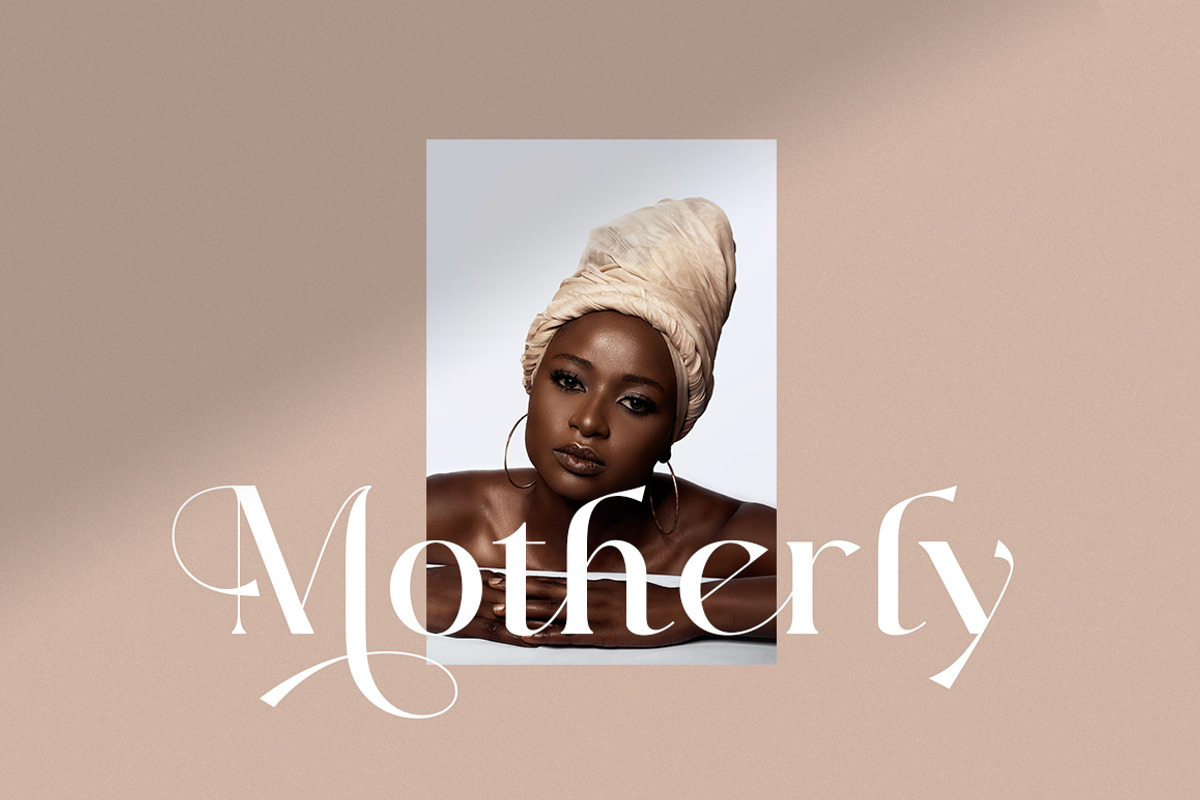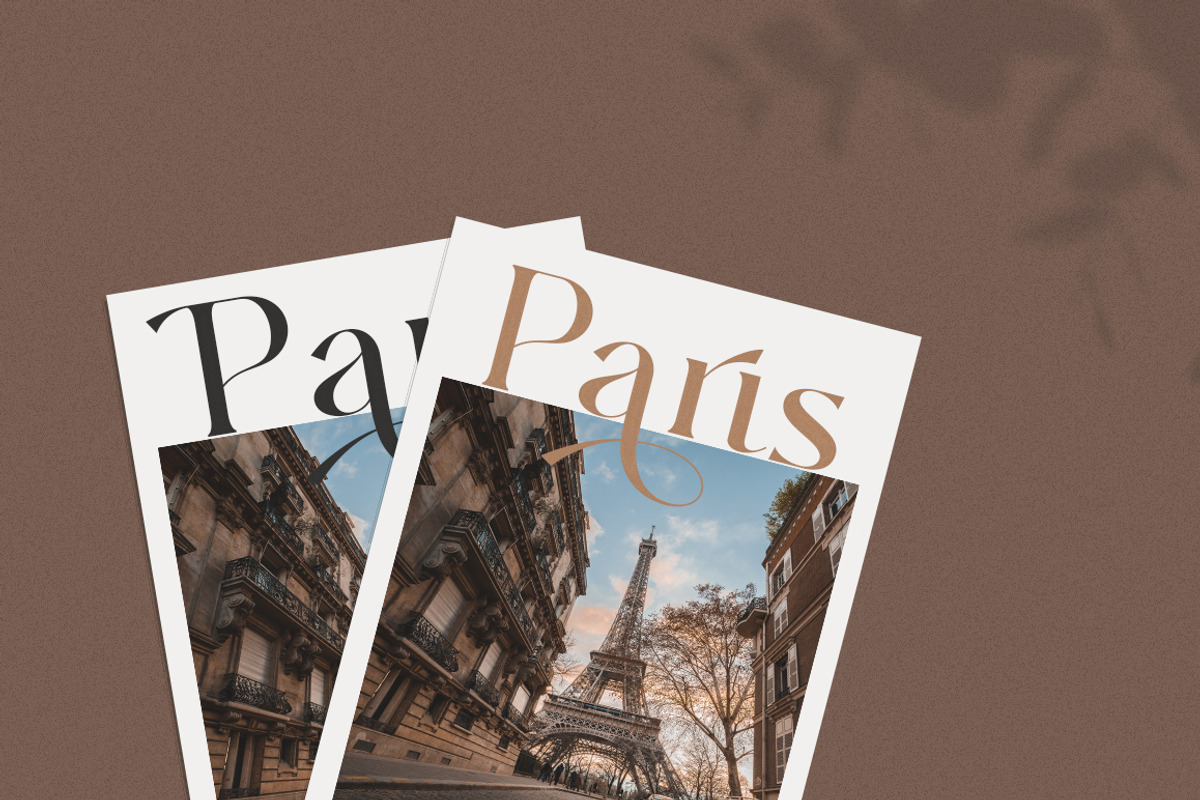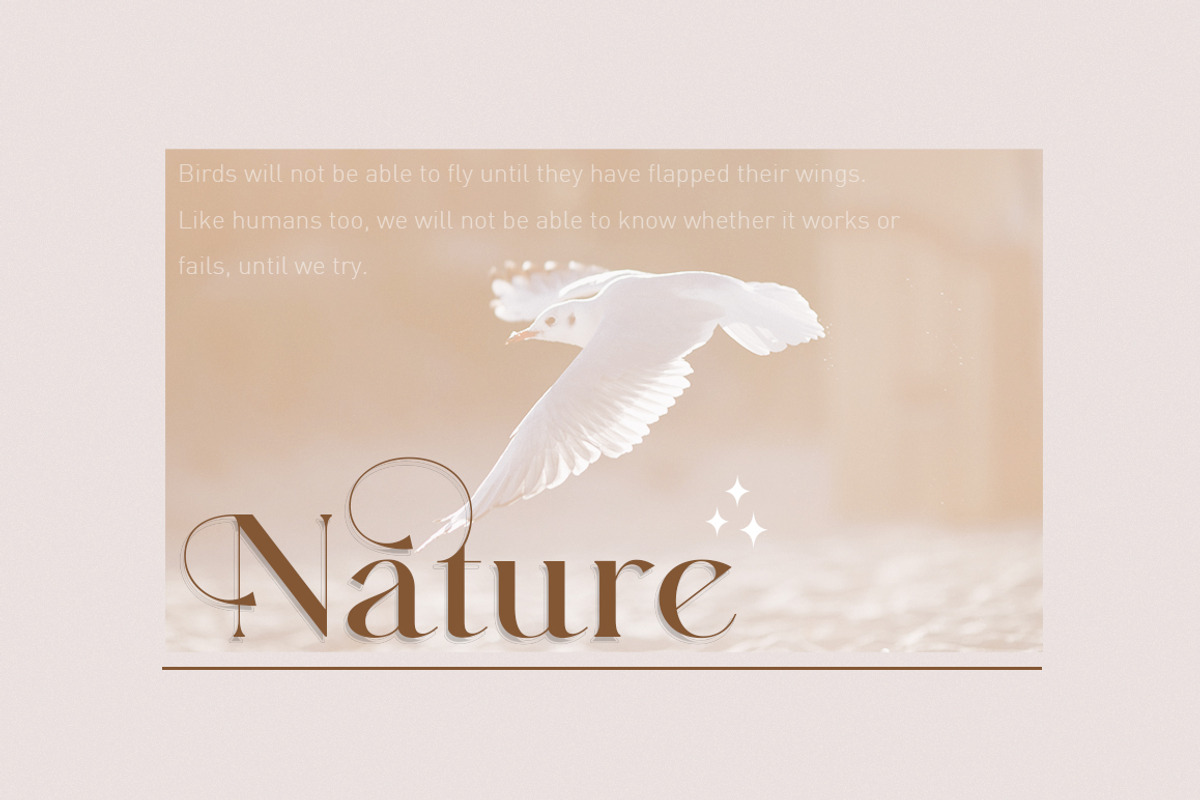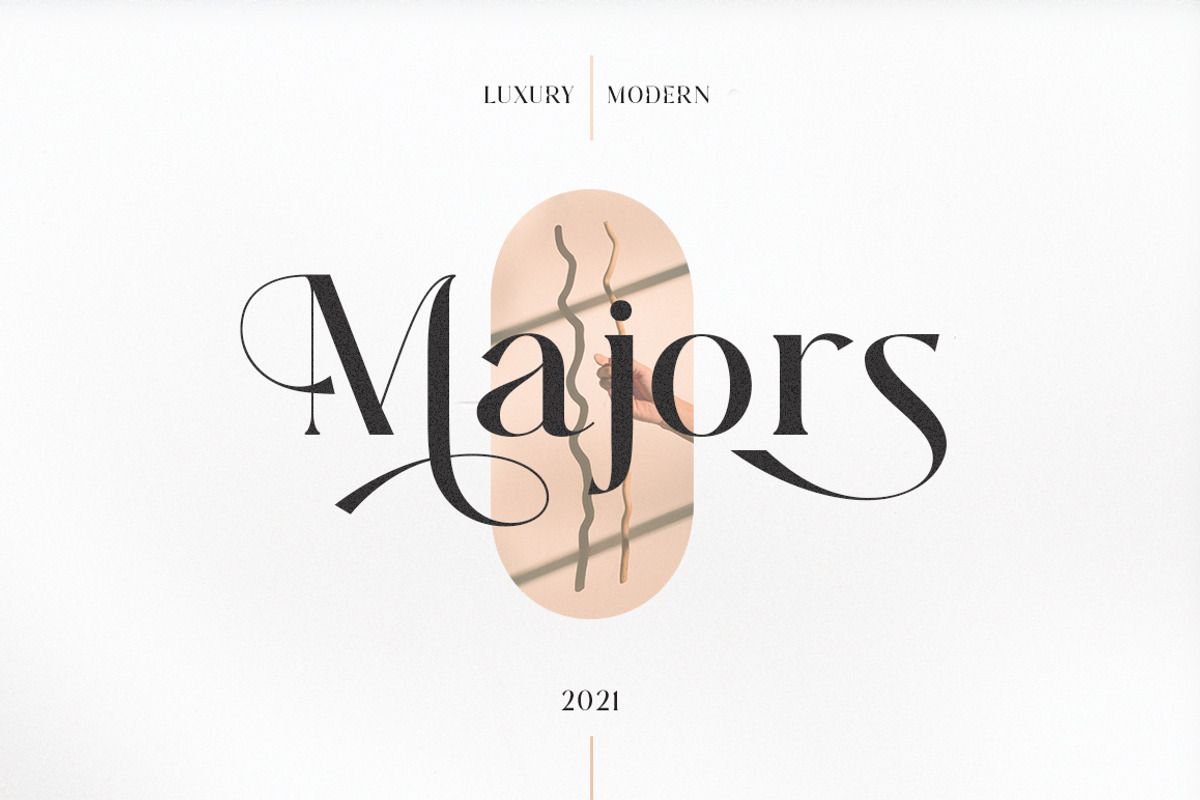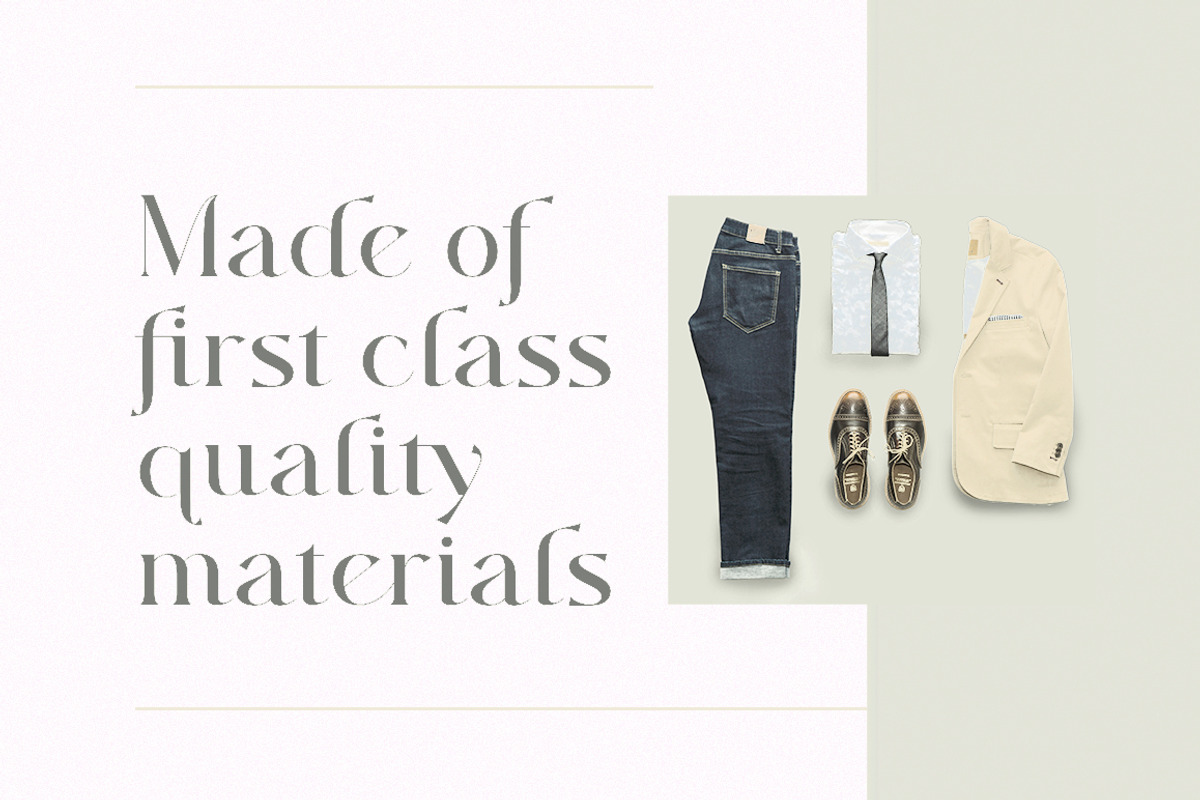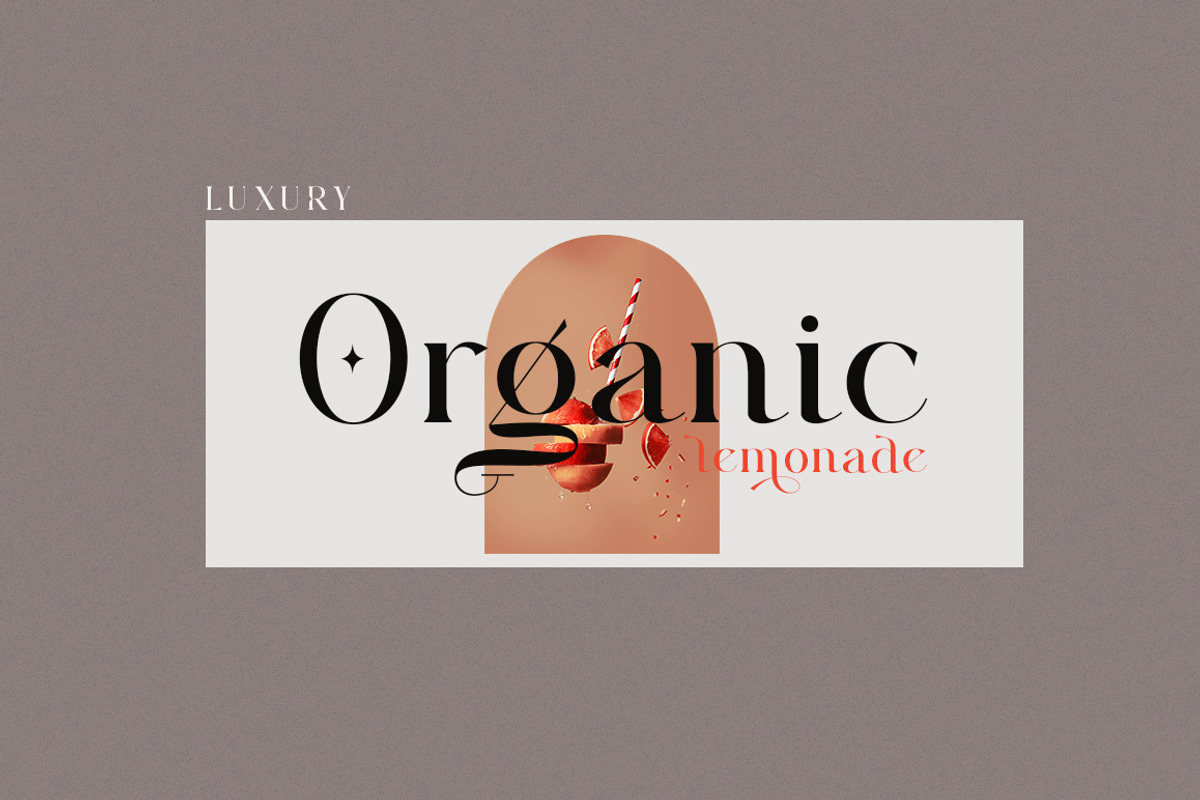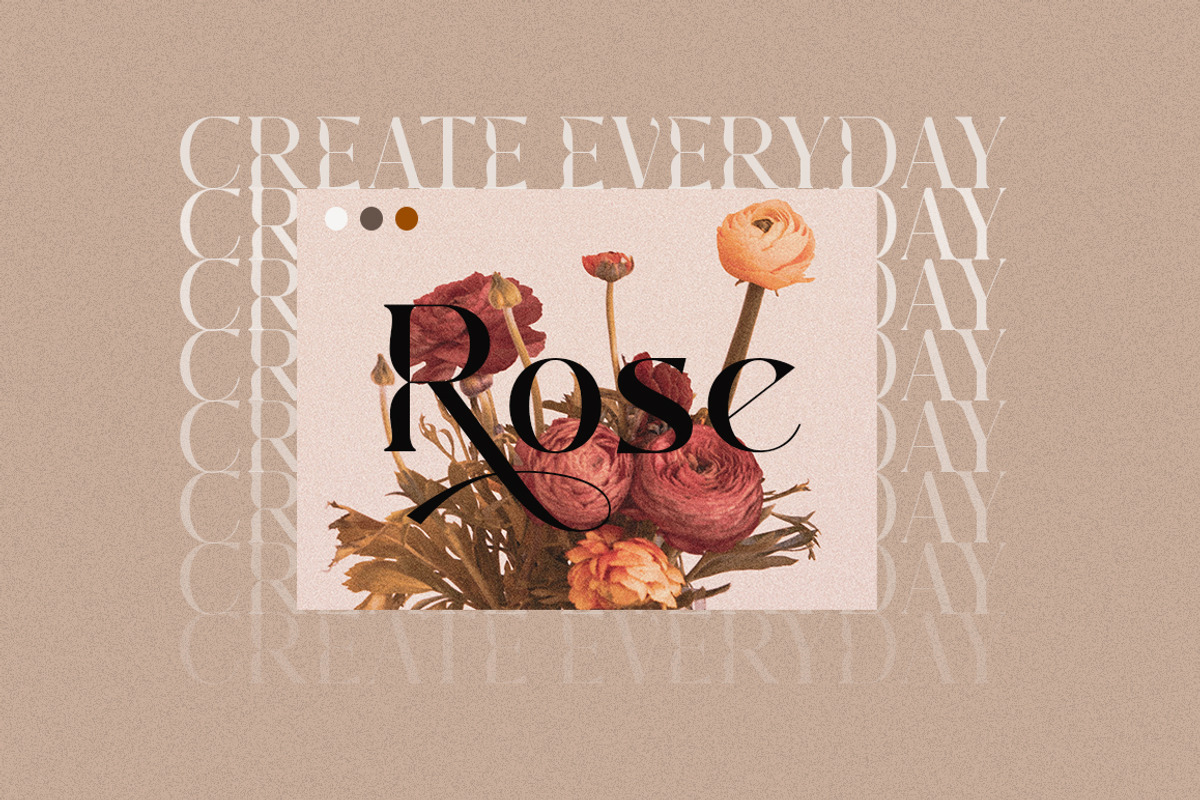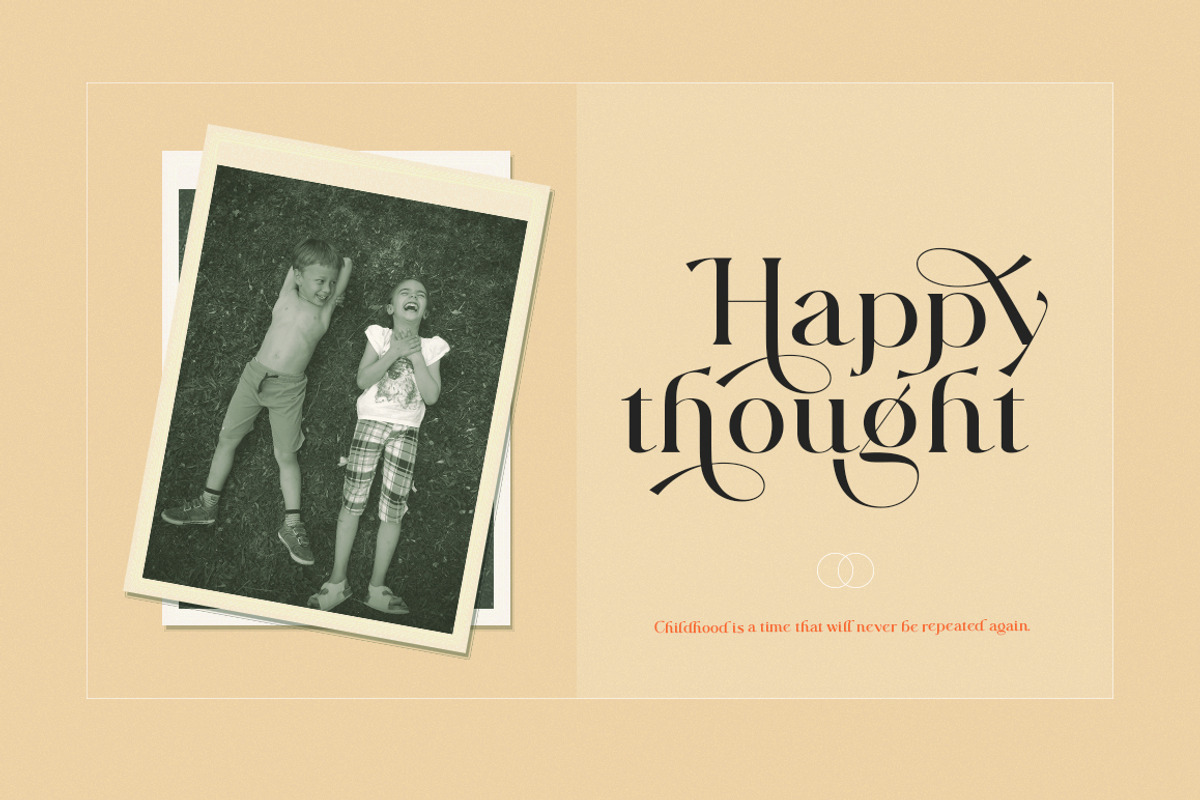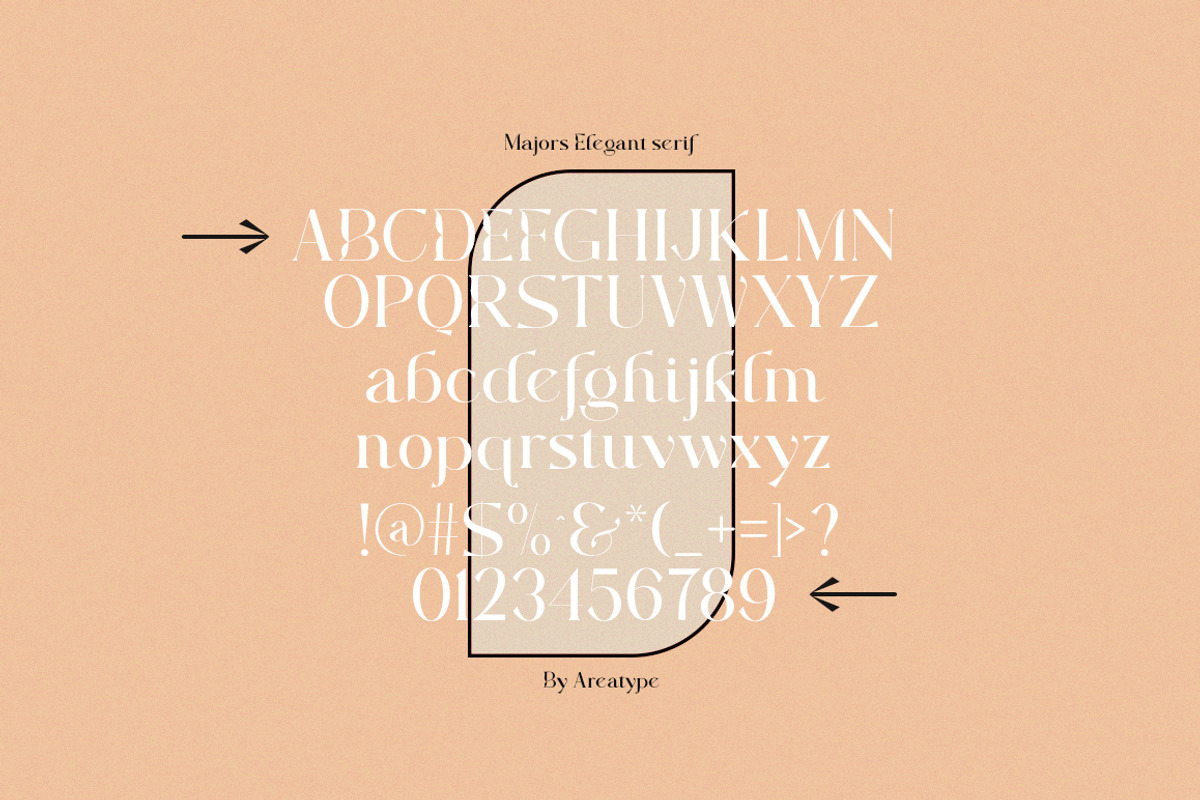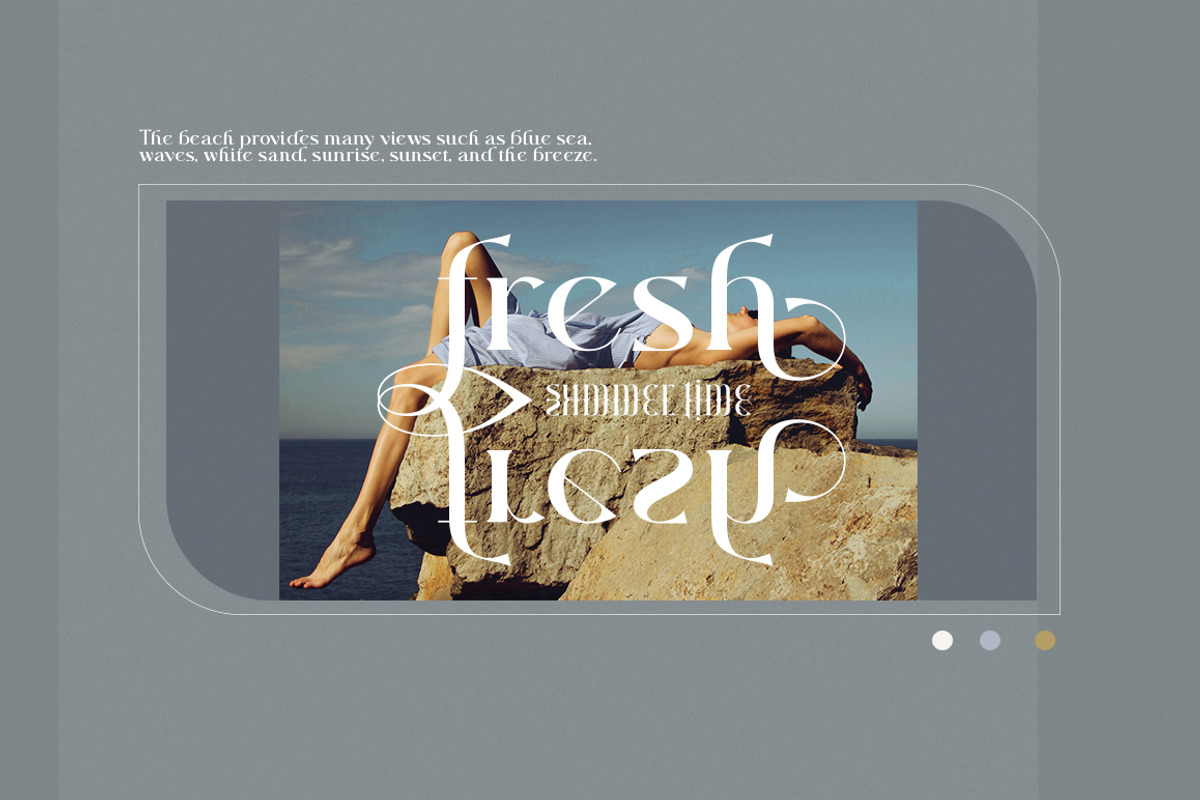
Majors A luxe serif
Majors is a very versatile font. perfect for magazine images, to wedding invitations, to branding, poster design, and more.
- Stylistic Alternates & Ligatures